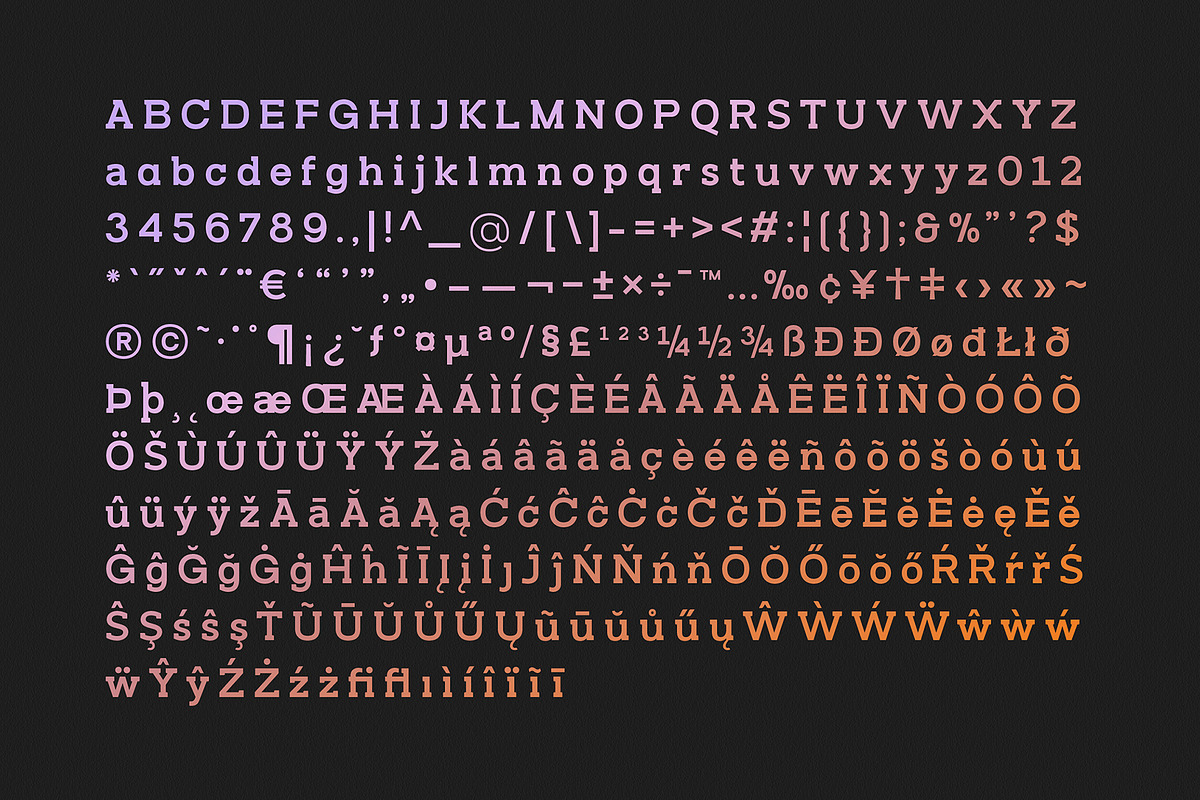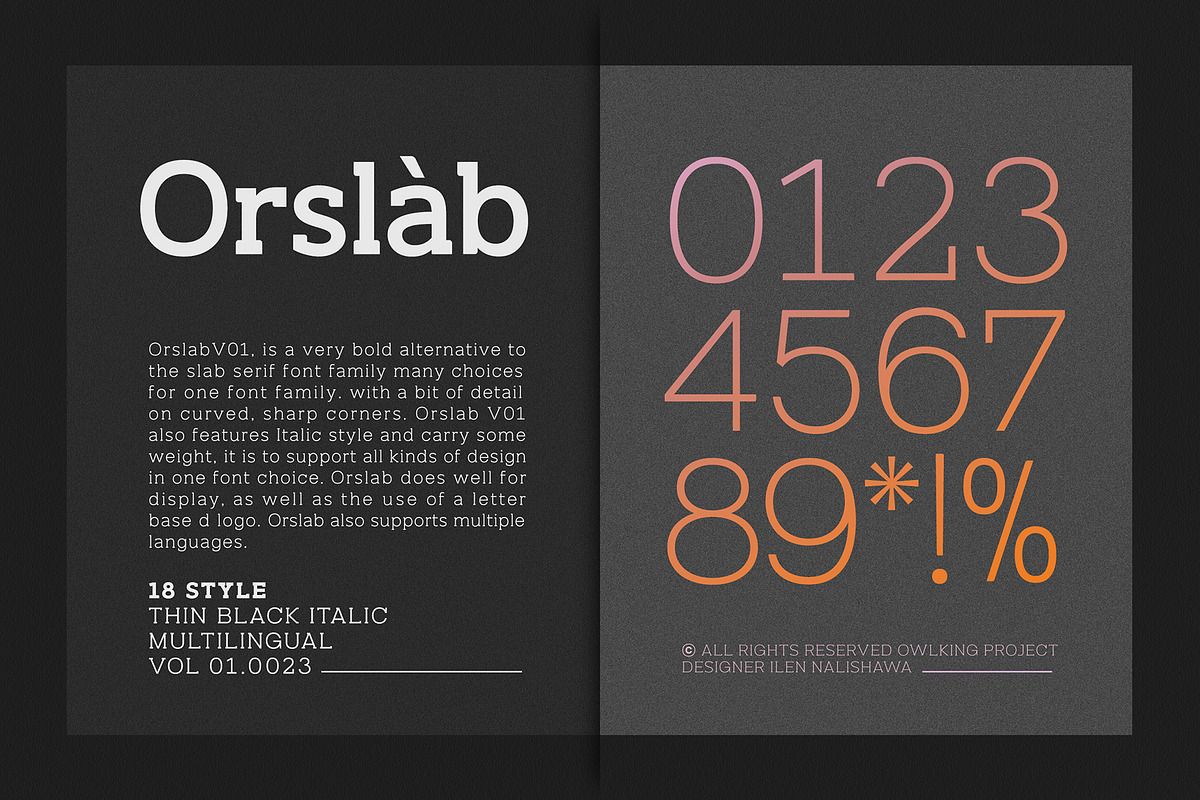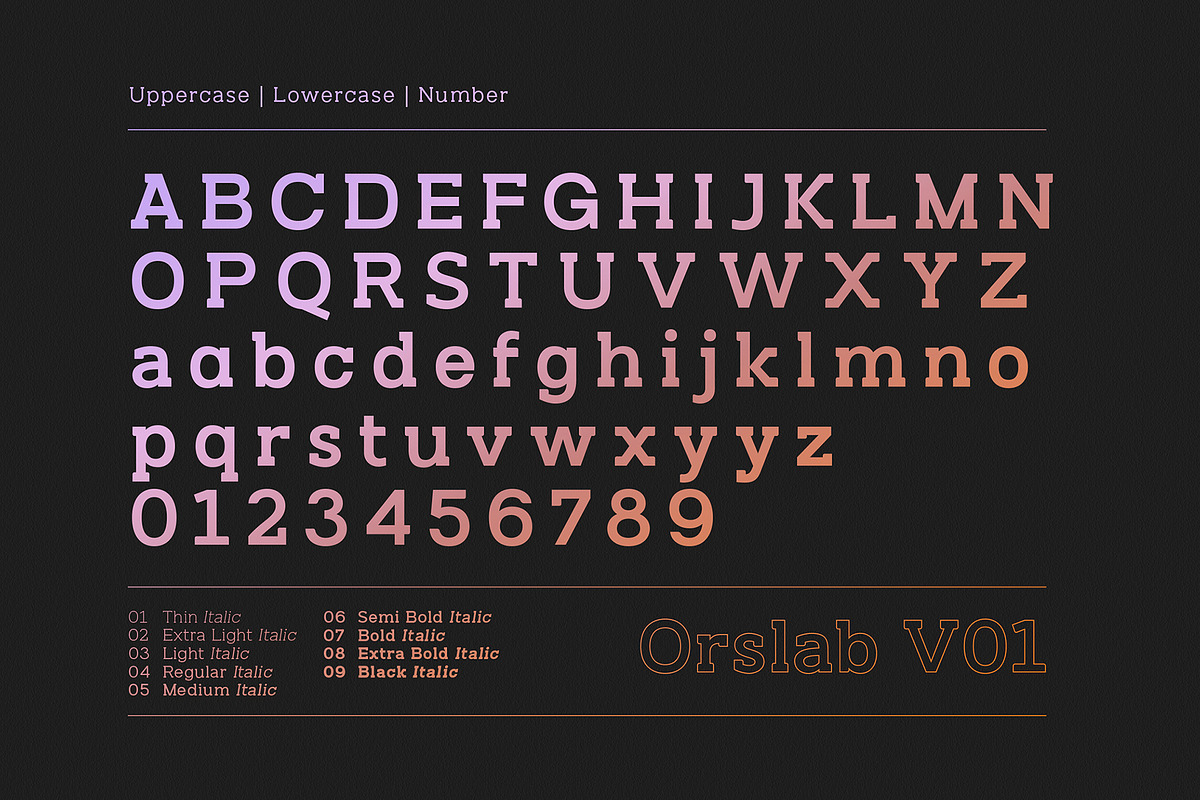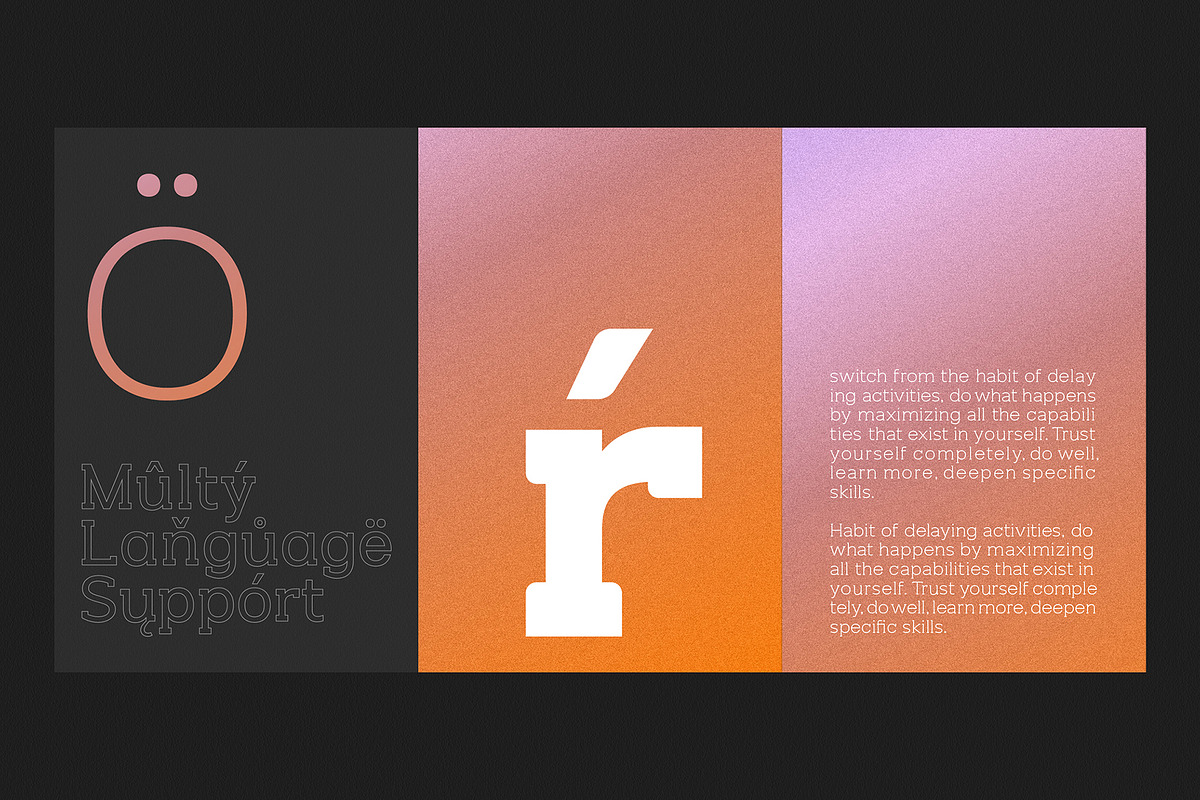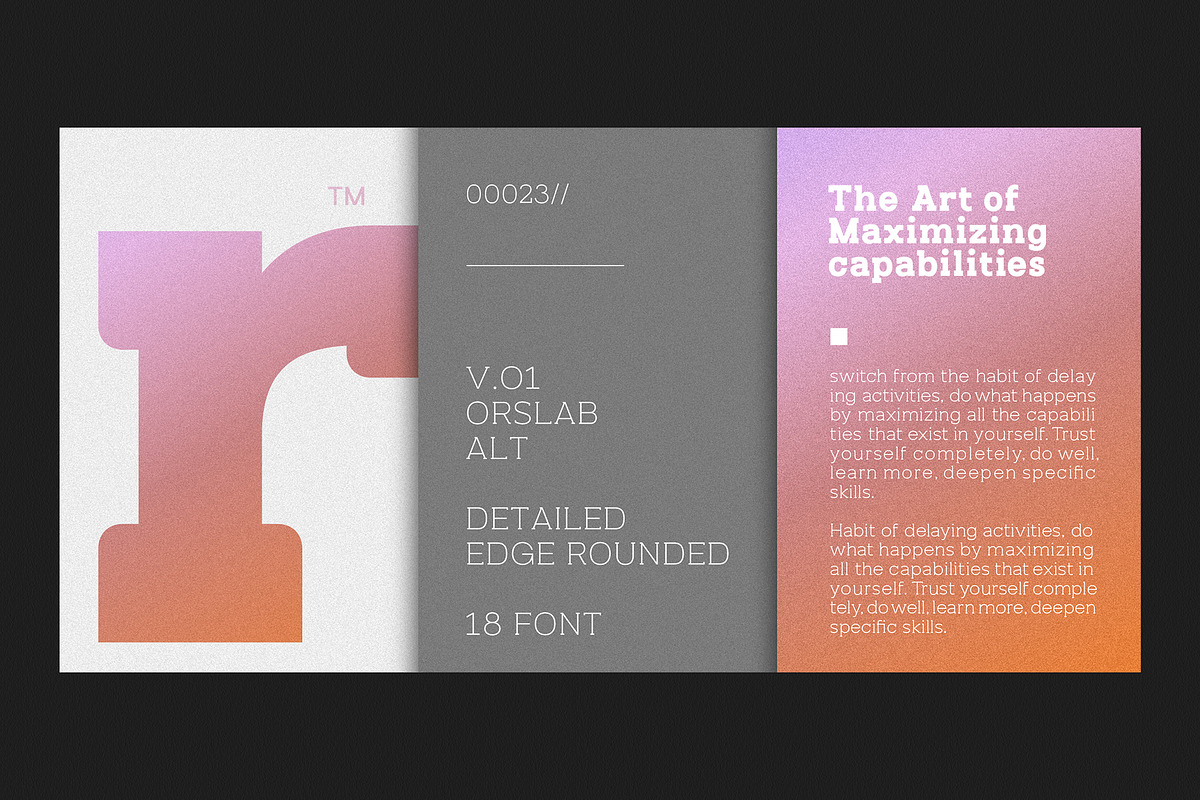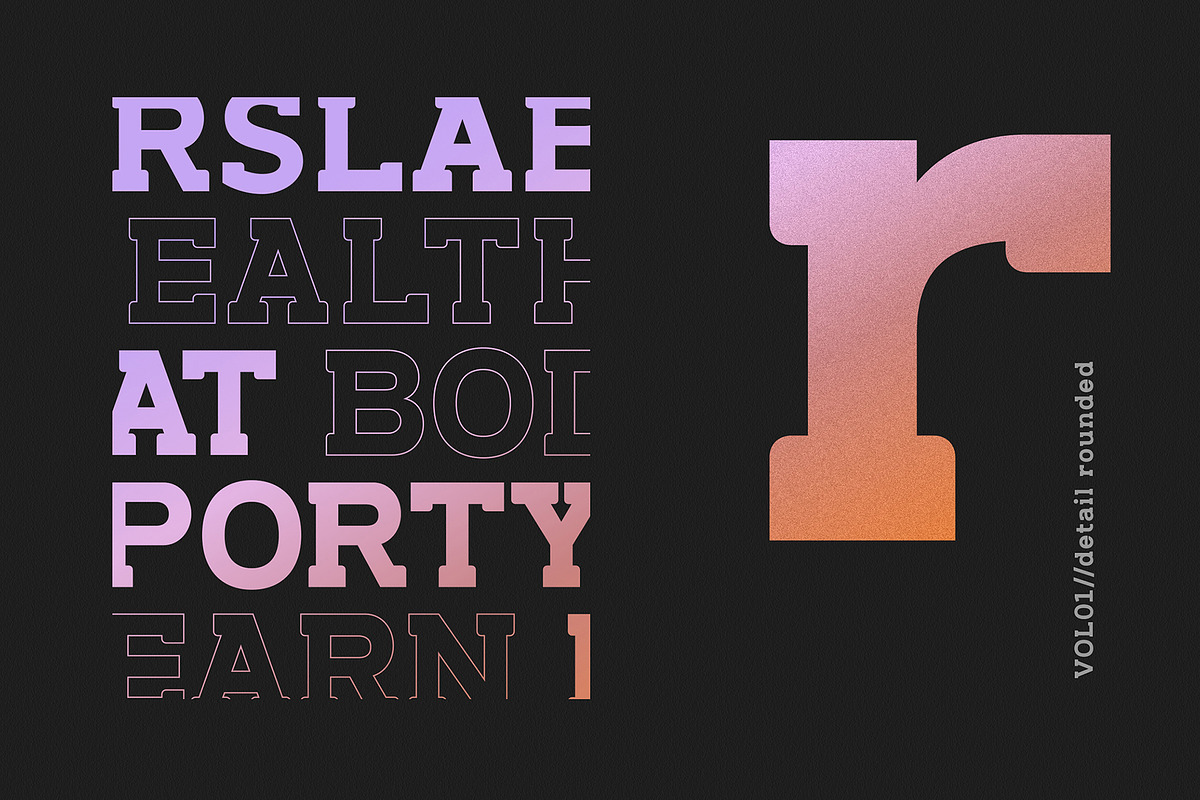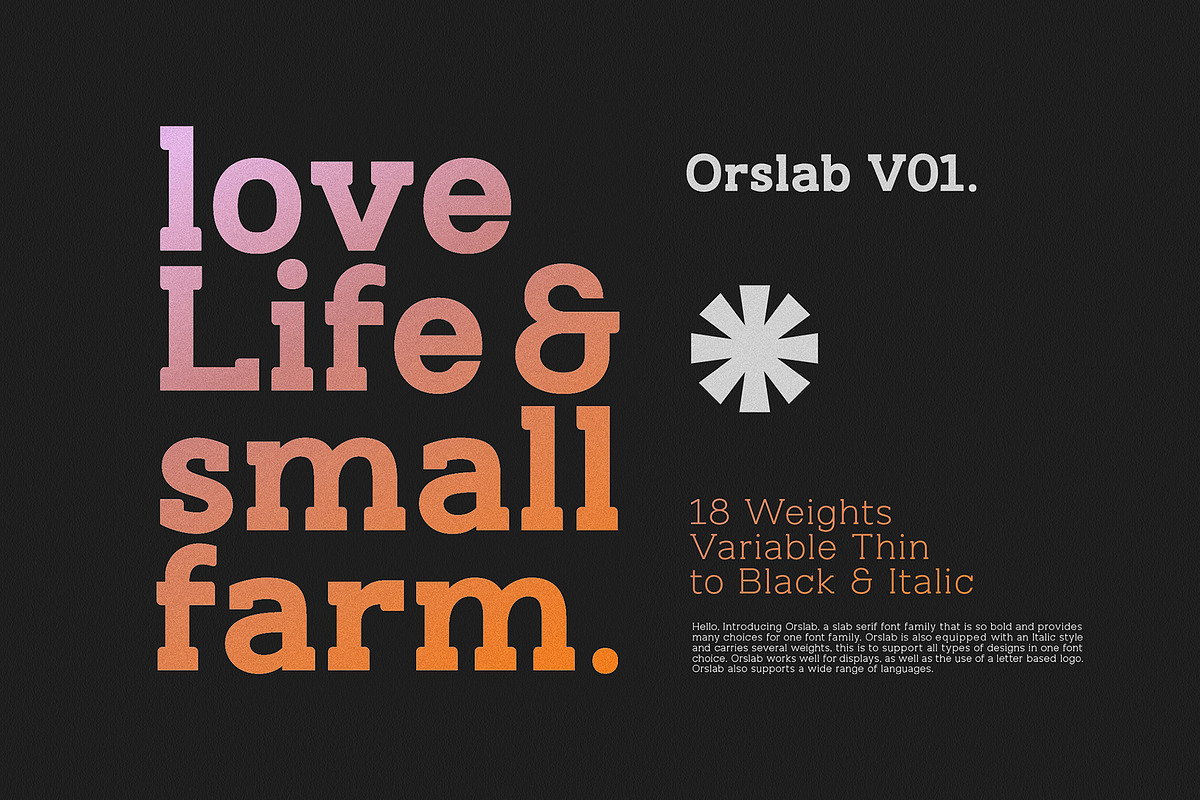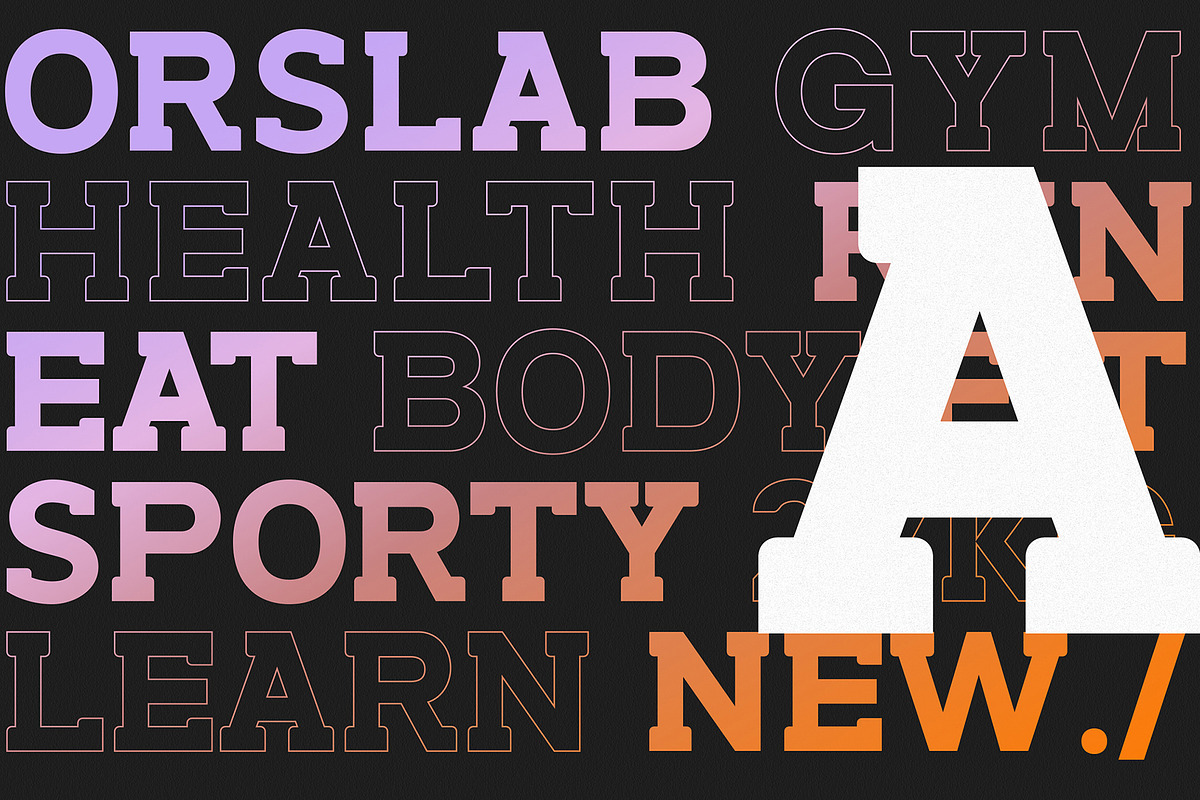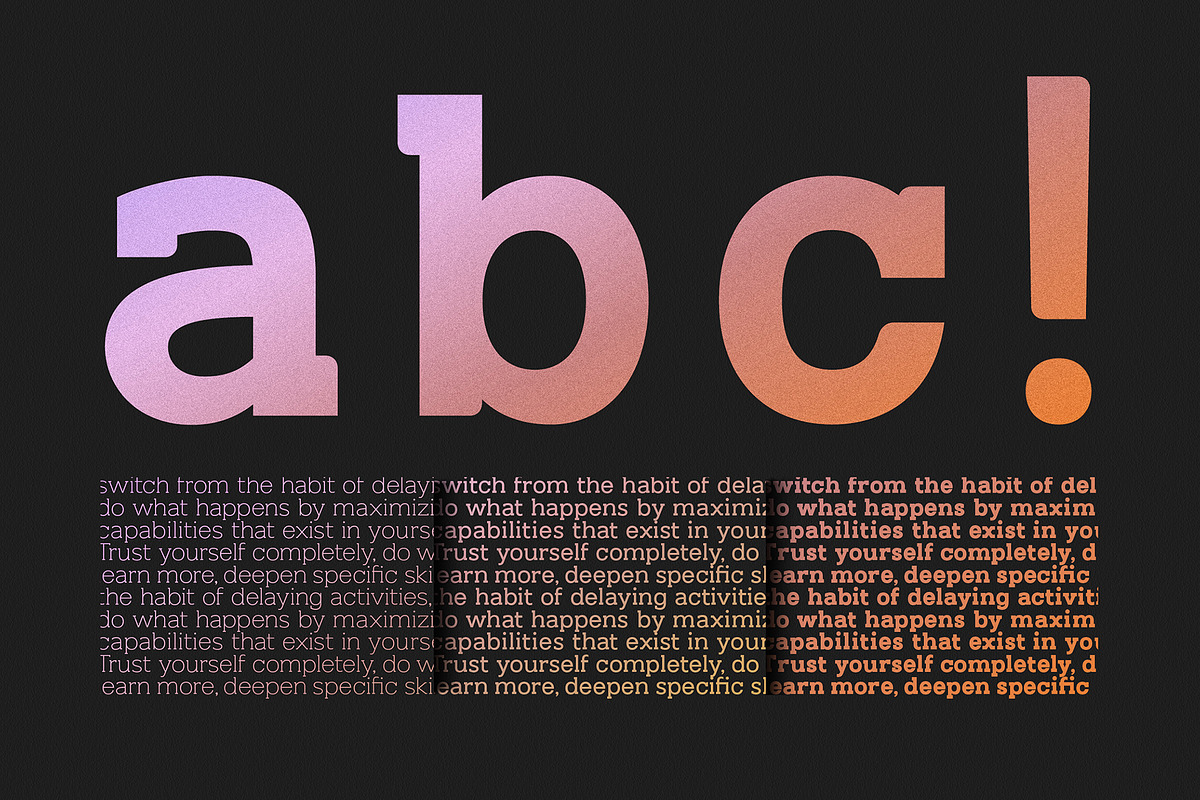
Orslab V01
Orslab V01, is a very bold alternative to the slab serif font family with many choices for one font family. with a bit of detail on curved, sharp corners. OrslabV01 also features an Italic style and carries some weight, it is to support all kinds of designs in one font choice. Orslab does well for display, as well as the use of a letter-based logo. Orslab also supports multiple languages.